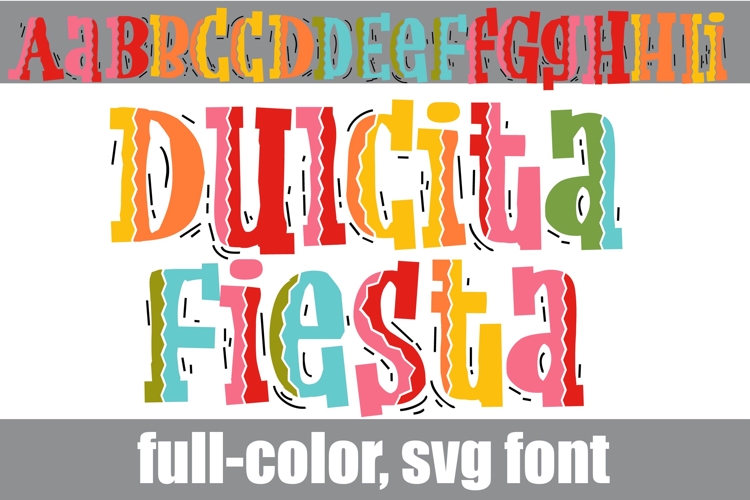
Dulcita Fiesta Color Font
This full-color, font is an Aztec style font in a bright color palette. There is an alt case of additional colors of each letter that you can access through your system's character map.